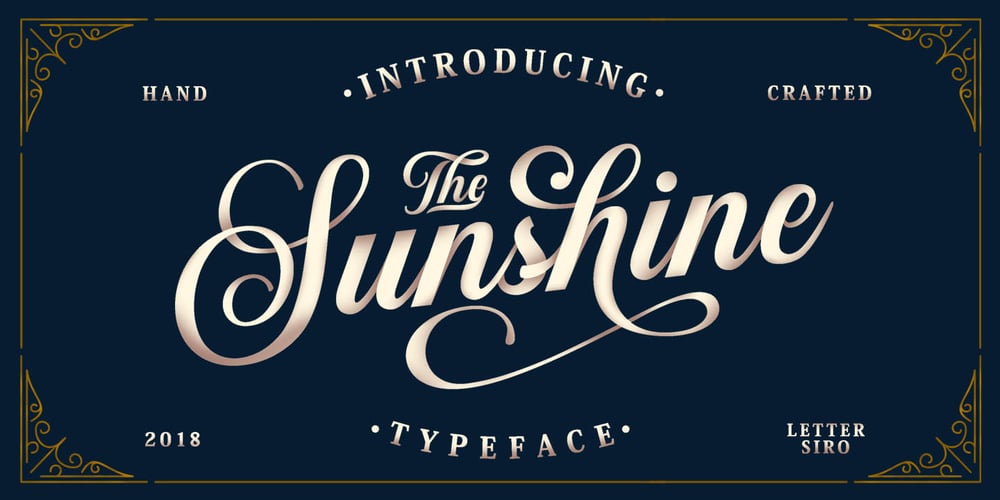
The Sunshine Script Font Family was designed by Muhammad Sirojuddin and published by Lettersiro. The Sunshine Script contains 1 styles and family package options. The Sunshine Script is a beautiful script. This is very suitable for beautiful logos, posters, vintage signage, magazines, photography, vintage lettering, and any other design project. The sunshine script comes with a lot of alternates